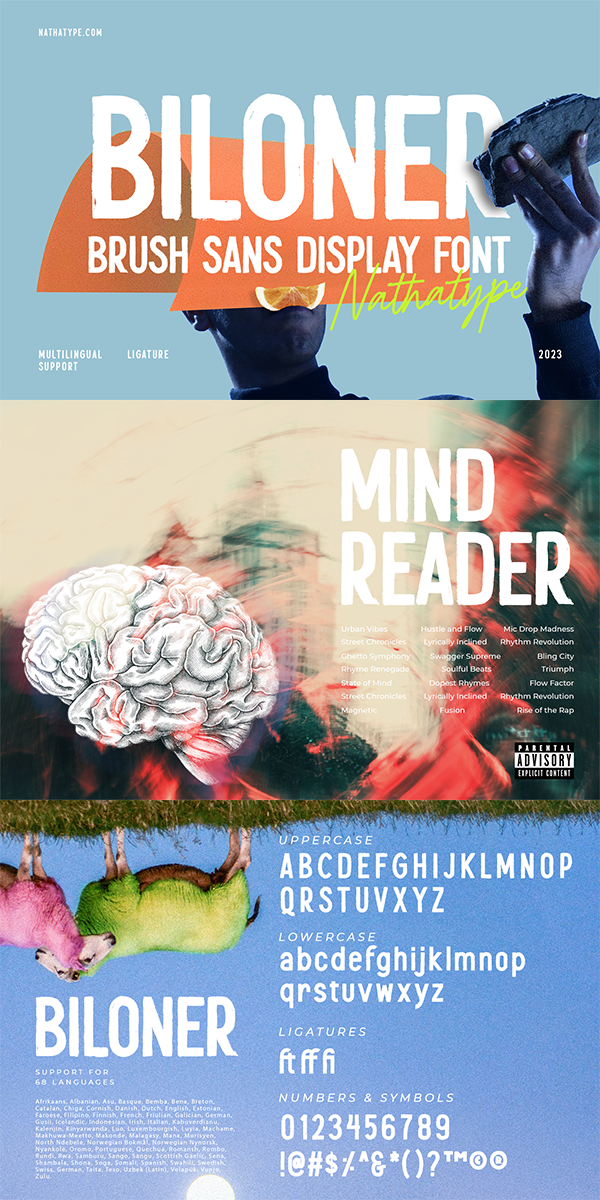
Biloner Font
About Biloner
Biloner is a font in simple, clean sans serif base forms. Its letters have no ornaments and serifs making them look modern and simple. The firm, straight letter shapes look strong and evident. This font shows enlarged capital letters to create a brave, prominent look enabling it to be the center design and to make an explicit message.